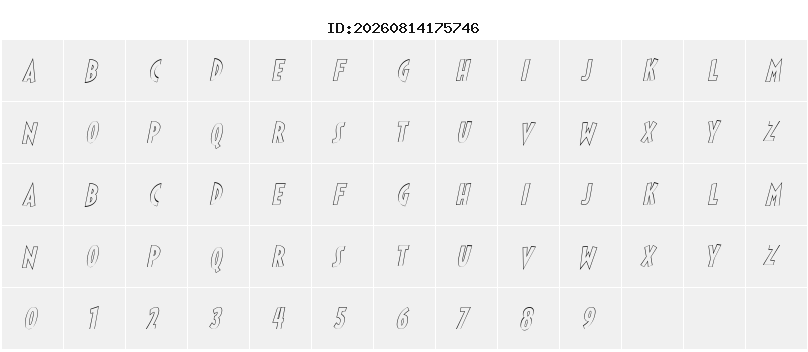
Sticky Moula BTN Outline Preview
• Font Name: Sticky Moula BTN Outline
• Font Style: Oblique
• Font ID: Sticky Moula BTN Outline Oblique
• Full Font Name: Sticky Moula BTN Outline Oblique
• PostScript Name: StickyMoulaBTNOutlineOblique
About Sticky Moula BTN Outline.ttf
Sticky Moula BTN Outline.ttf is a modern, elegant sans-serif font designed for ultimate readability and visual harmony. Perfect for branding, headlines, web design, and print materials.